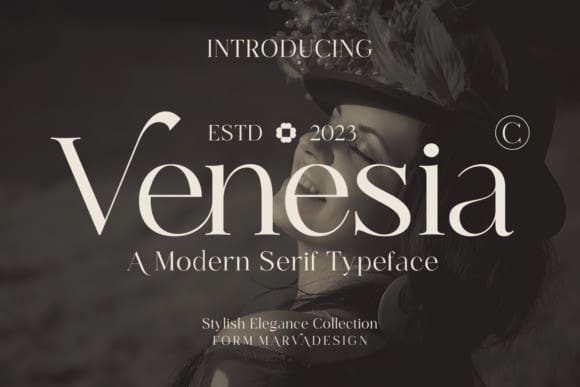
Venesia Font
Venesia Font is a stylish serif font that seamlessly combines timeless sophistication with contemporary allure. Its meticulously crafted letterforms exude refined elegance, capturing the essence of classic beauty. Ideal for projects requiring a versatile and sophisticated typeface, Venesia adds a touch of timeless grace to your designs.